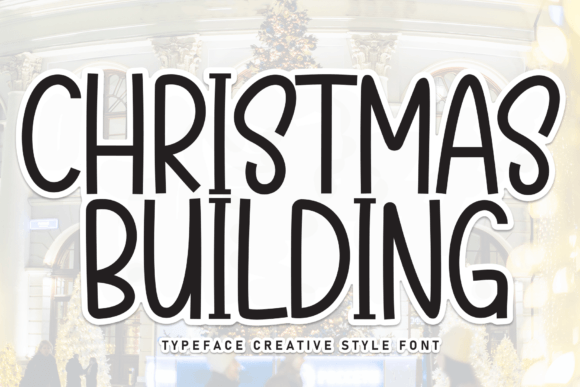
Christmas Building Font: Elevate Your Designs with a Festive Touch
As the holiday season approaches, it’s time to infuse your designs with a festive spirit. Introducing the Christmas Building Font, a special creative product designed to give you an extraordinary experience. This font is perfect for adding a touch of Christmas magic to your wall displays, wedding invitations, social media post logos, advertisements, product packaging, product designs, labels, photography, watermarks, invitations, stationery, and any project that requires tasteful handwriting.
Key Features of Christmas Building Font
- Latest Style Letters: The Christmas Building Font boasts the latest style letters that are sure to make your designs stand out.
Endless Design Possibilities with Christmas Building Font
The Christmas Building Font is versatile and can be used in a variety of design projects. Here are some ideas to get you started:
- Wall Displays: Create eye-catching wall displays for your business or home with festive and stylish lettering.
- Wedding Invitations: Add a touch of elegance and sophistication to your wedding invitations with this beautiful font.
- Social Media Post Logos: Elevate your social media presence with custom logos and graphics featuring the Christmas Building Font.
- Advertisements: Create captivating advertisements that stand out from the crowd with this unique font.
- Product Packaging: Add a personal touch to your product packaging with custom labels and designs.
- Product Designs: Incorporate the Christmas Building Font into your product designs for a distinctive look.
- Labels: Create stylish labels for your products or gifts with this versatile font.
- Photography: Use the Christmas Building Font as watermarks or overlays to add a touch of elegance to your photos.
- Invitations: Design beautiful invitations for parties, events, or special occasions.
- Stationery: Elevate your stationery with custom lettering and designs featuring the Christmas Building Font.
Why Choose Christmas Building Font?
By choosing the Christmas Building Font, you’re not just getting a font – you’re getting a comprehensive design solution that offers:
- Unique and Festive Designs: Stand out from the crowd with unique and festive designs that capture the spirit of Christmas.
Don’t miss out on the opportunity to elevate your designs with the Christmas Building Font. With its versatility, ease of use, and festive charm, this font is sure to become a staple in your design toolkit.